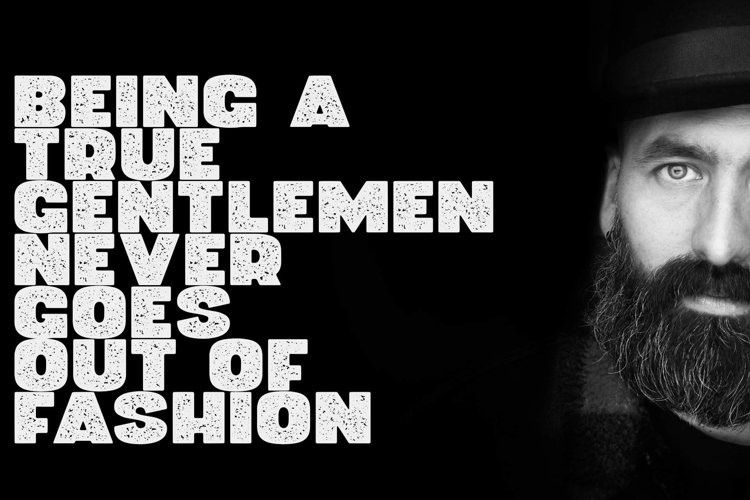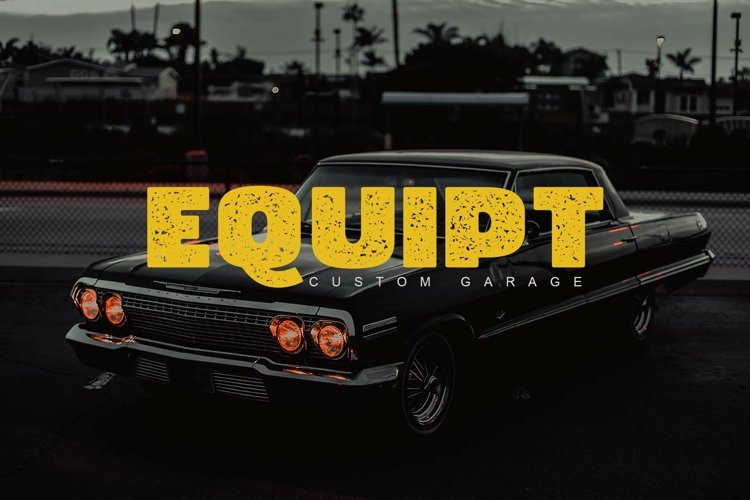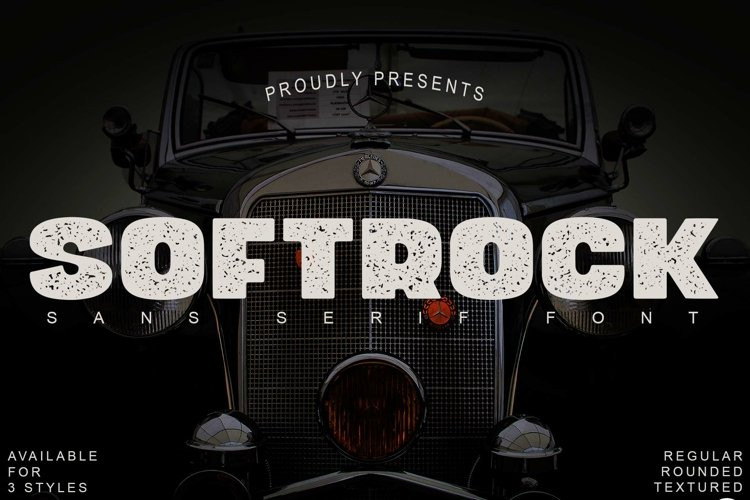
Softrock Font
Softrock FontProudly present SOFTROCK, a bold sans serif font with 3 styles Regular, Rounded, and Textured Effect.
SOFTROCK is made as neatly as possible with great attention to detail. Softrock is very suitable to be used in making quotes, headlines, logos, labels, lettering, and packaging.